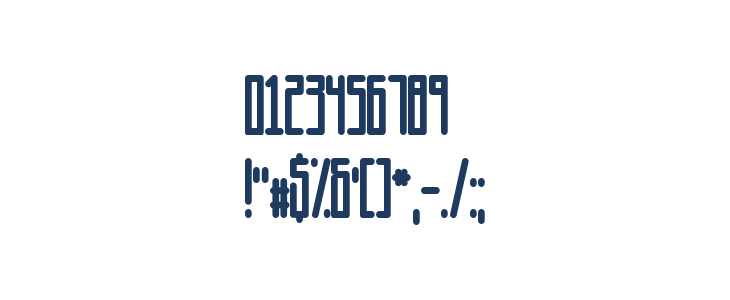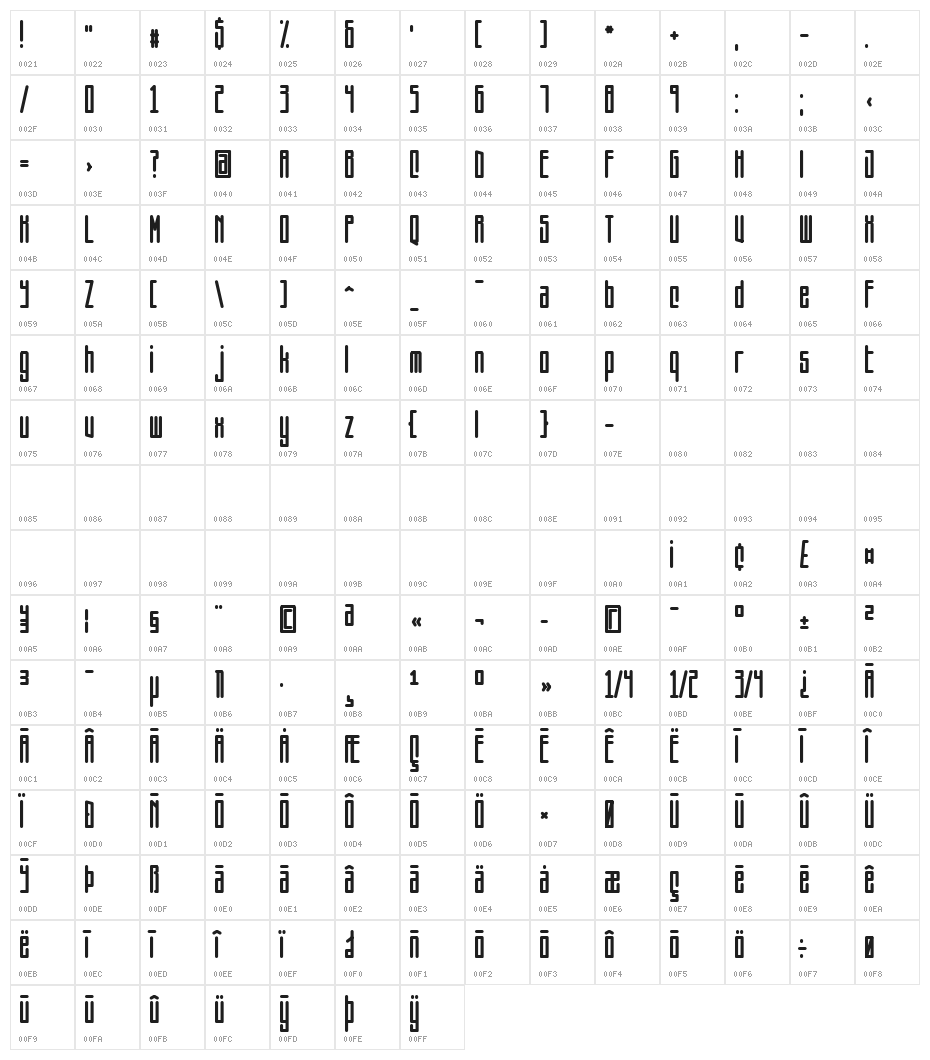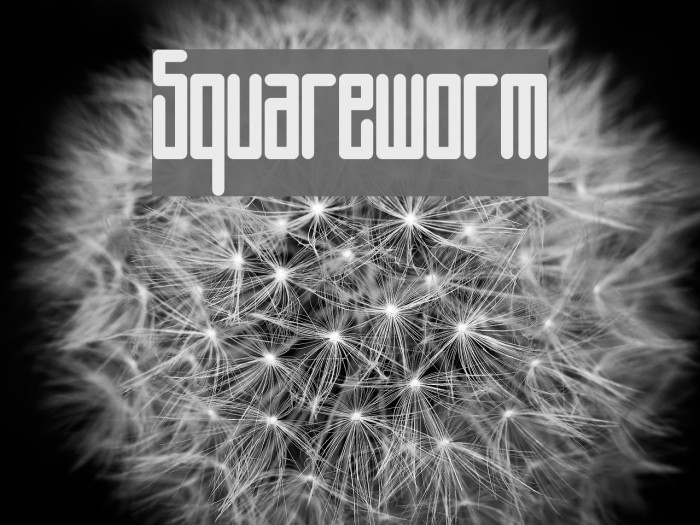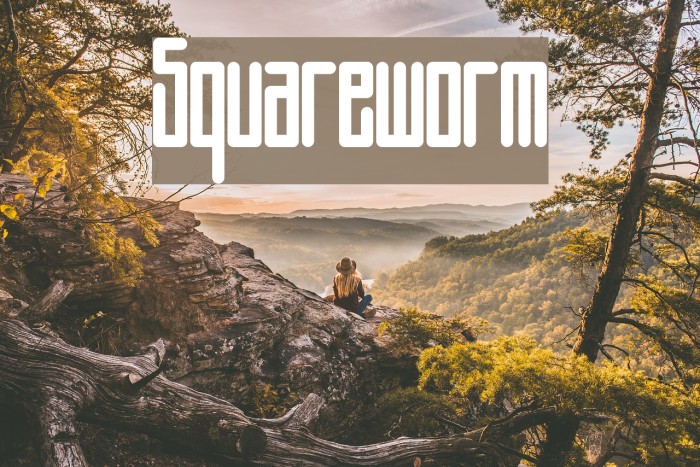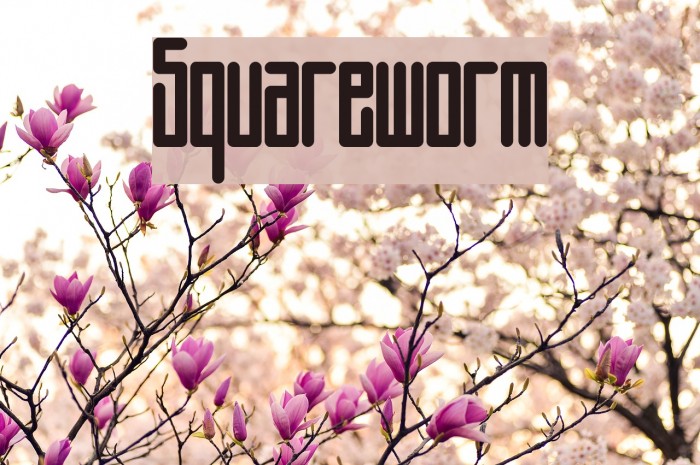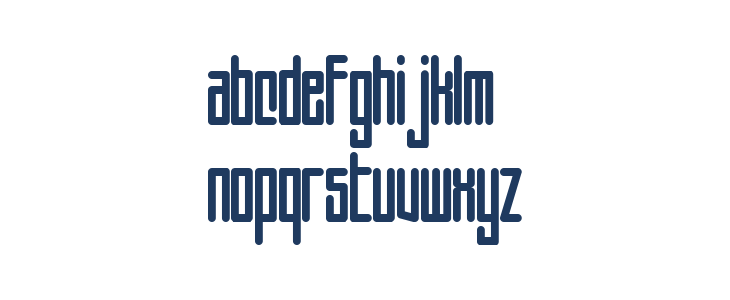
Squareworm Font
Squareworm Description
This font features a unique, geometric design with a modern and futuristic appeal. The characters are constructed with bold, rounded edges and uniform stroke widths, creating a cohesive and visually striking appearance. The uppercase and lowercase letters maintain a consistent height, contributing to a monospaced look, while the numerals and special characters seamlessly integrate into the overall style. The font's distinct square-like structure and smooth curves make it ideal for projects that require a contemporary and innovative touch.
| Proposed Projects | Ideal for technology branding, futuristic posters, digital interfaces, and modern art projects. |